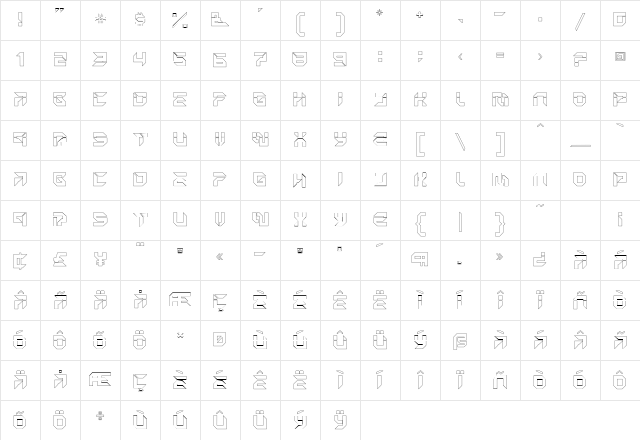
MetronOpen Regular
Design Context for MetronOpen
MetronOpen is a composed and adaptable typeface that performs quietly and consistently across a wide range of design contexts.